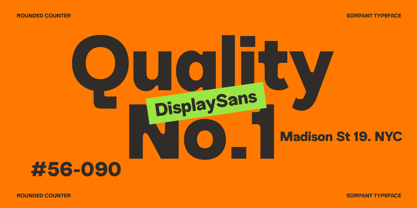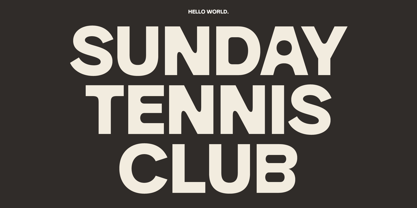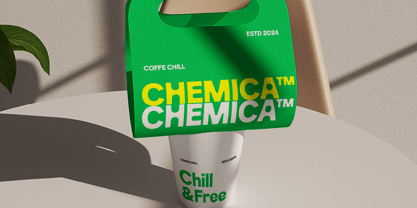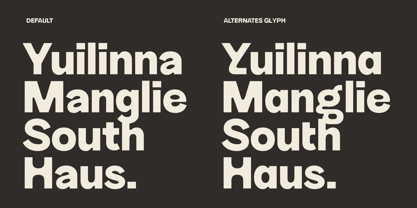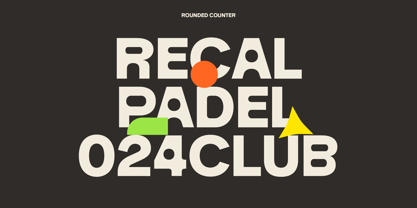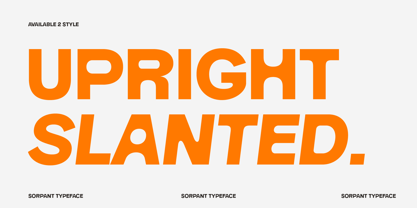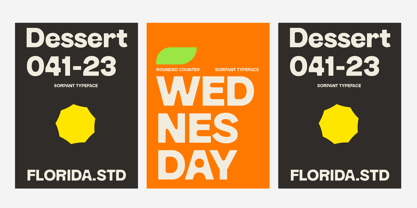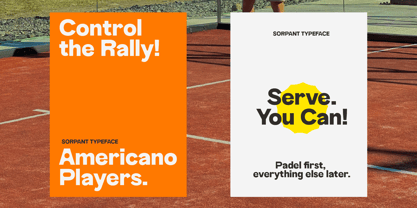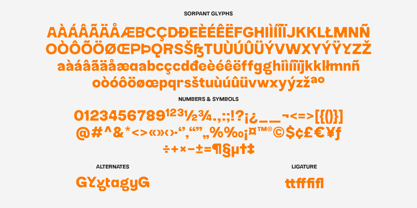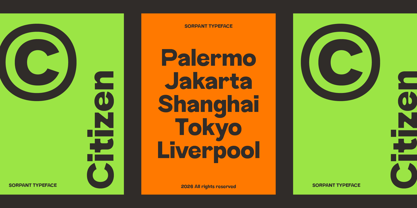
Sorpant
von Jolicia Type
Die Schriftfamilie Sorpant wurde von Laire Banyu entworfen und von Jolicia Type veröffentlicht. Sorpant enthält 2 Stile und Familienpaketoptionen. Mehr über diese Familie
SORPANT is a modern display typeface that redefines simplicity with a distinctive twist. Built on a clean sans serif foundation, this font stands out through its uniquely rounded counters, giving each letter a softer, more approachable personality while maintaining a bold and confident presence. Designed for visual impact, SORPANT balances minimalism with character, making it ideal for headlines, branding, posters, and contemporary design projects. The smooth inner curves contrast beautifully with its structured outer forms, creating a dynamic rhythm that feels both fresh and memorable. With its blend of clarity and uniqueness, SORPANT offers a new perspective on classic sans serif design—refined, expressive, and undeniably modern.